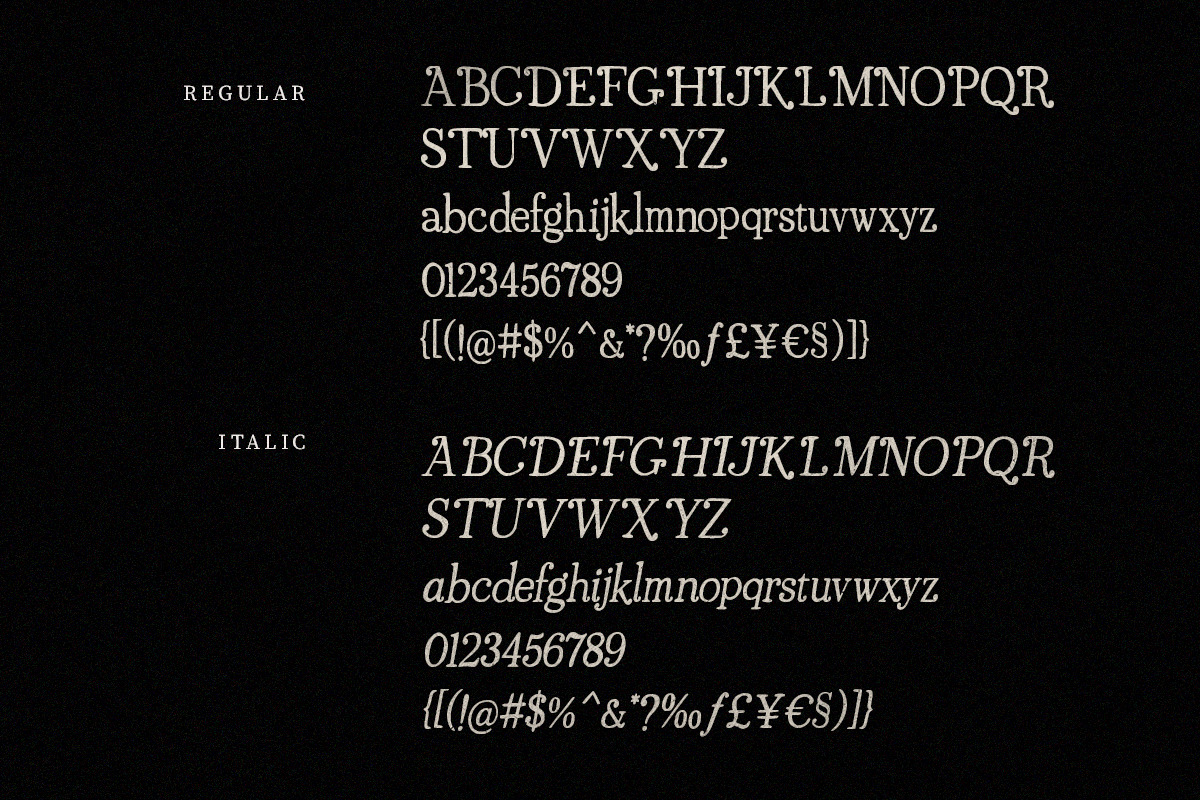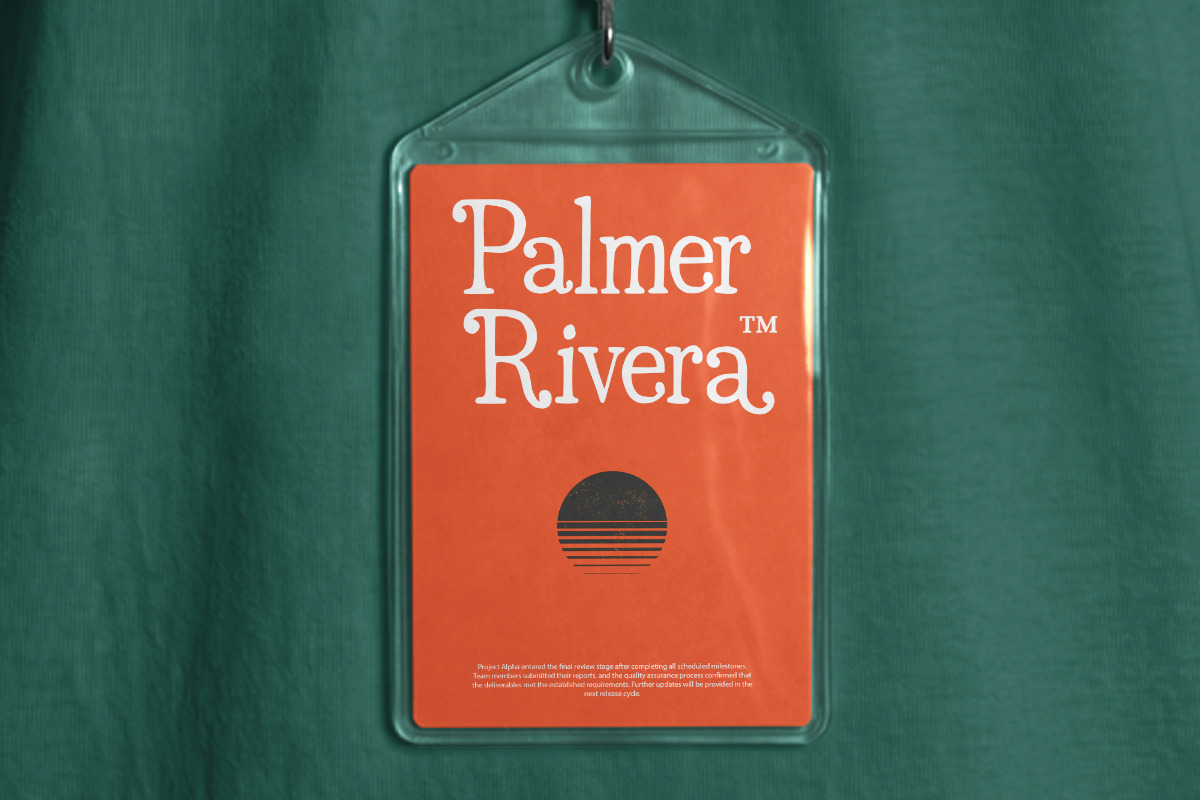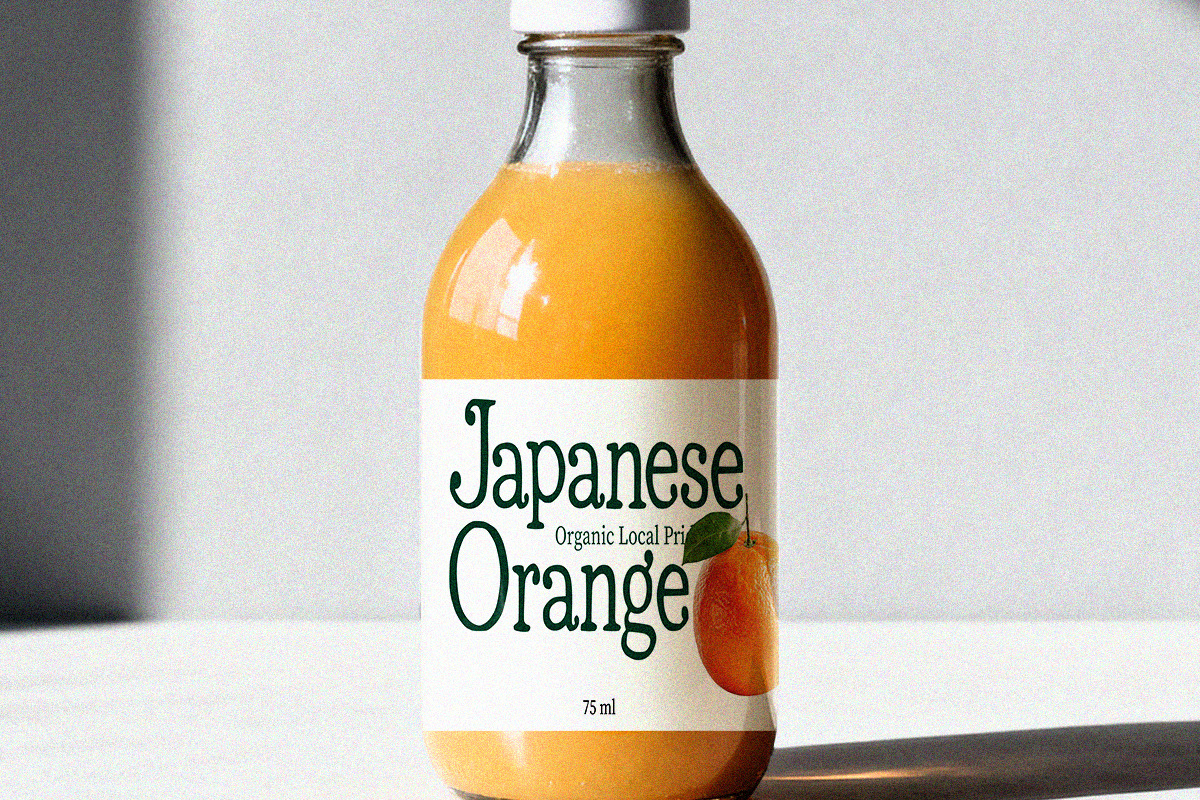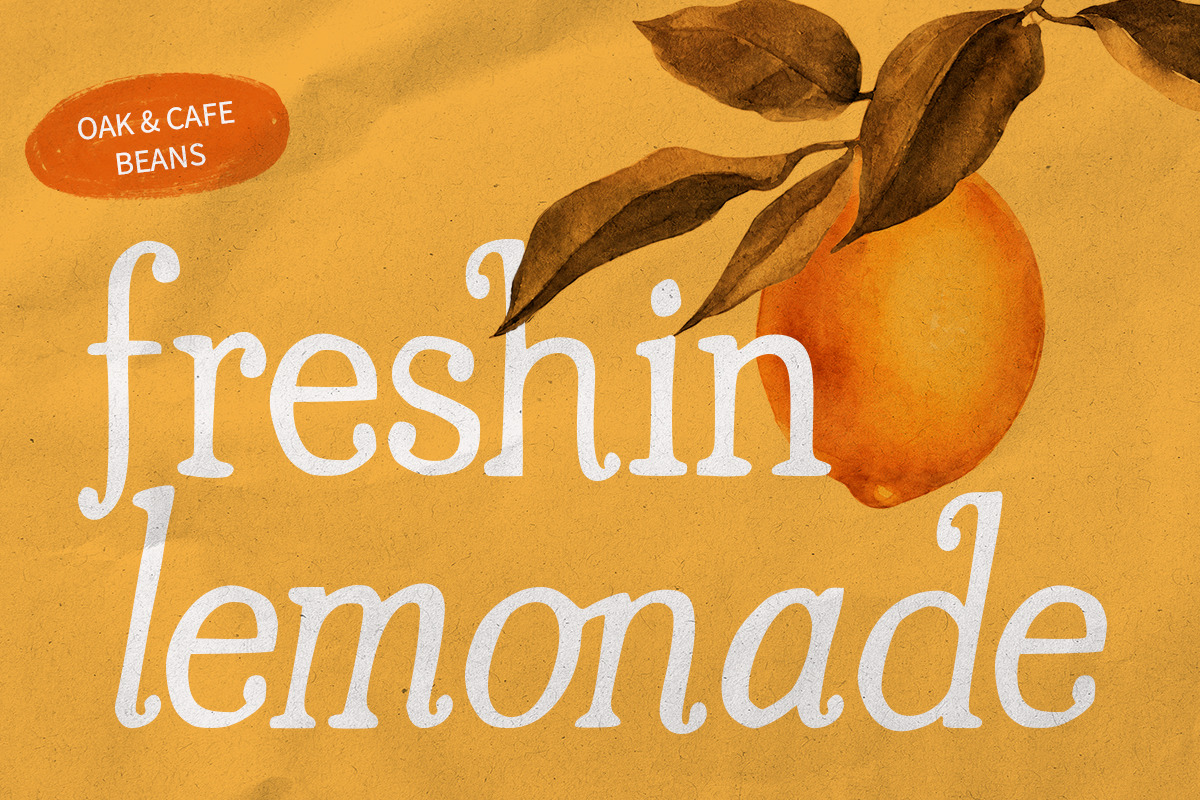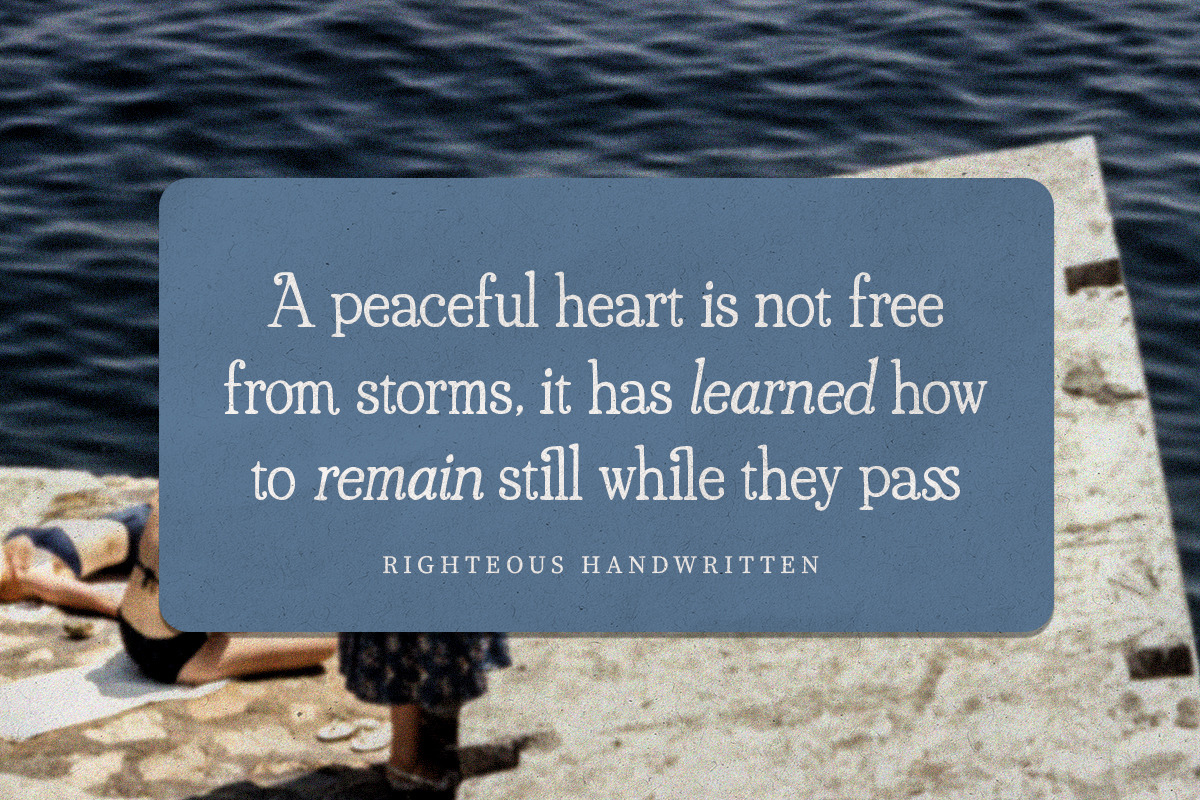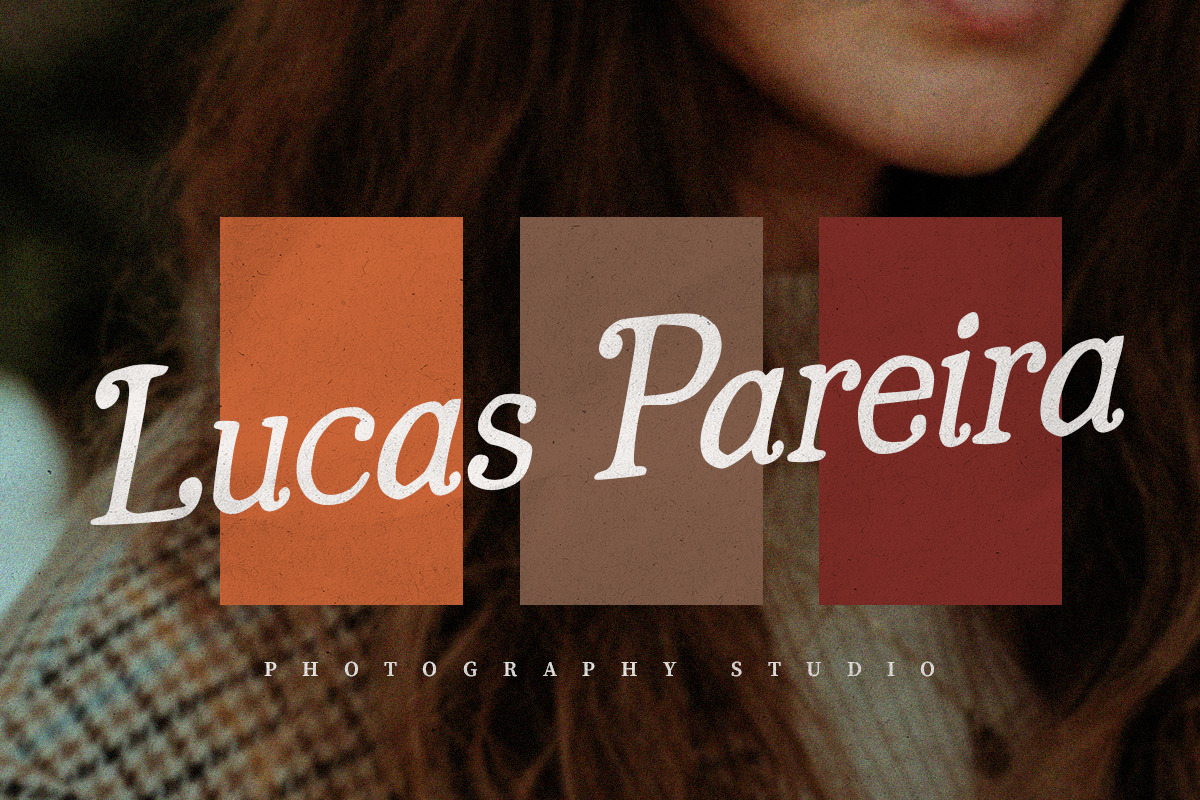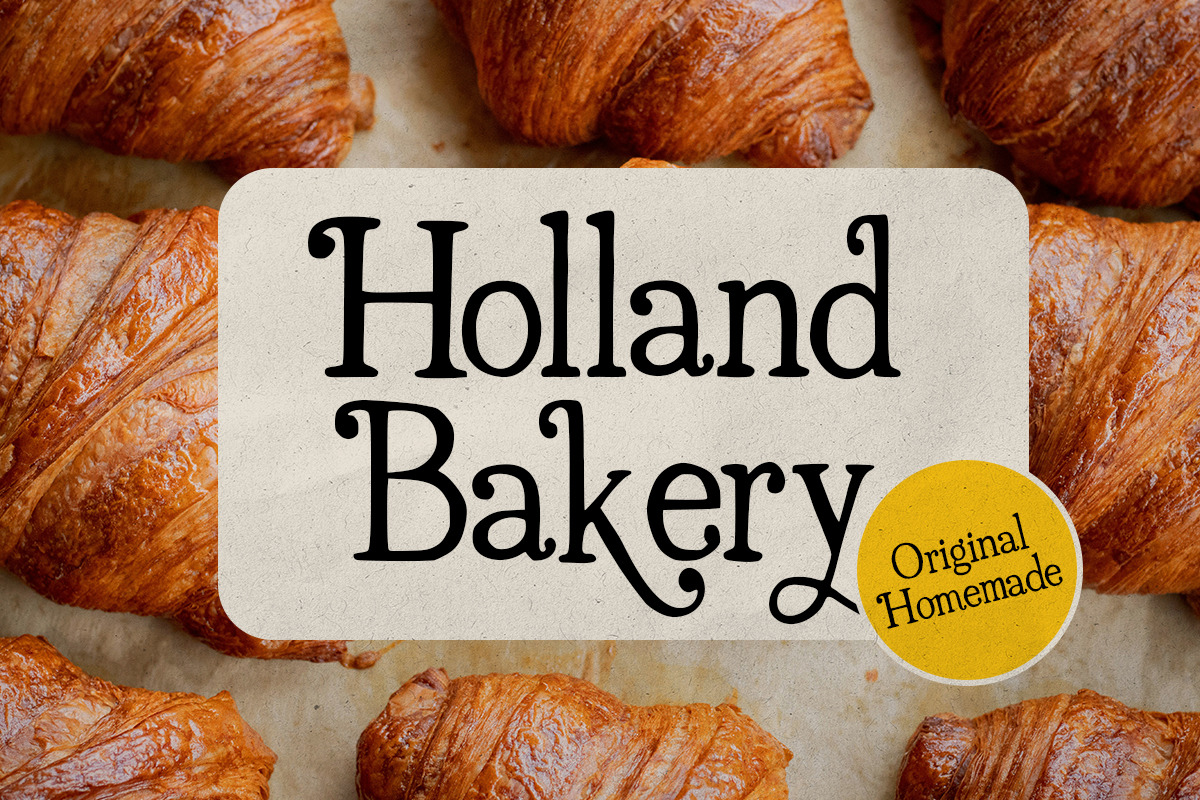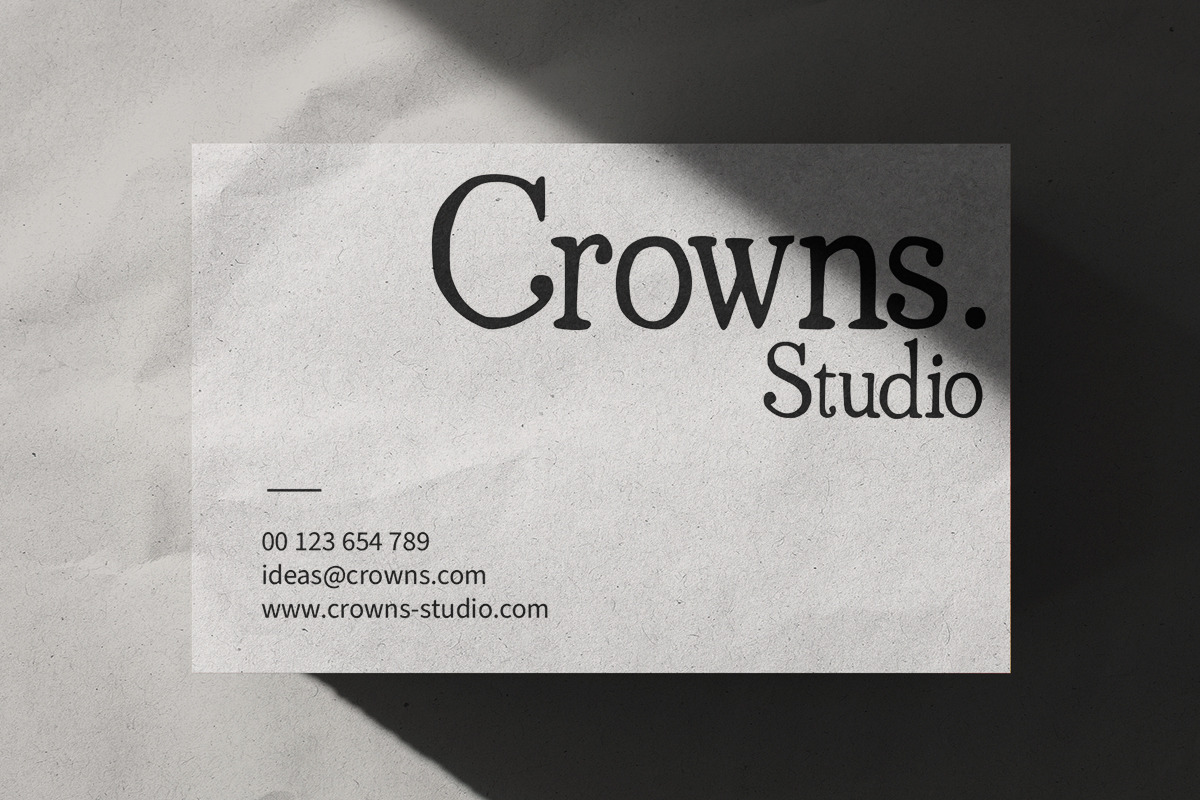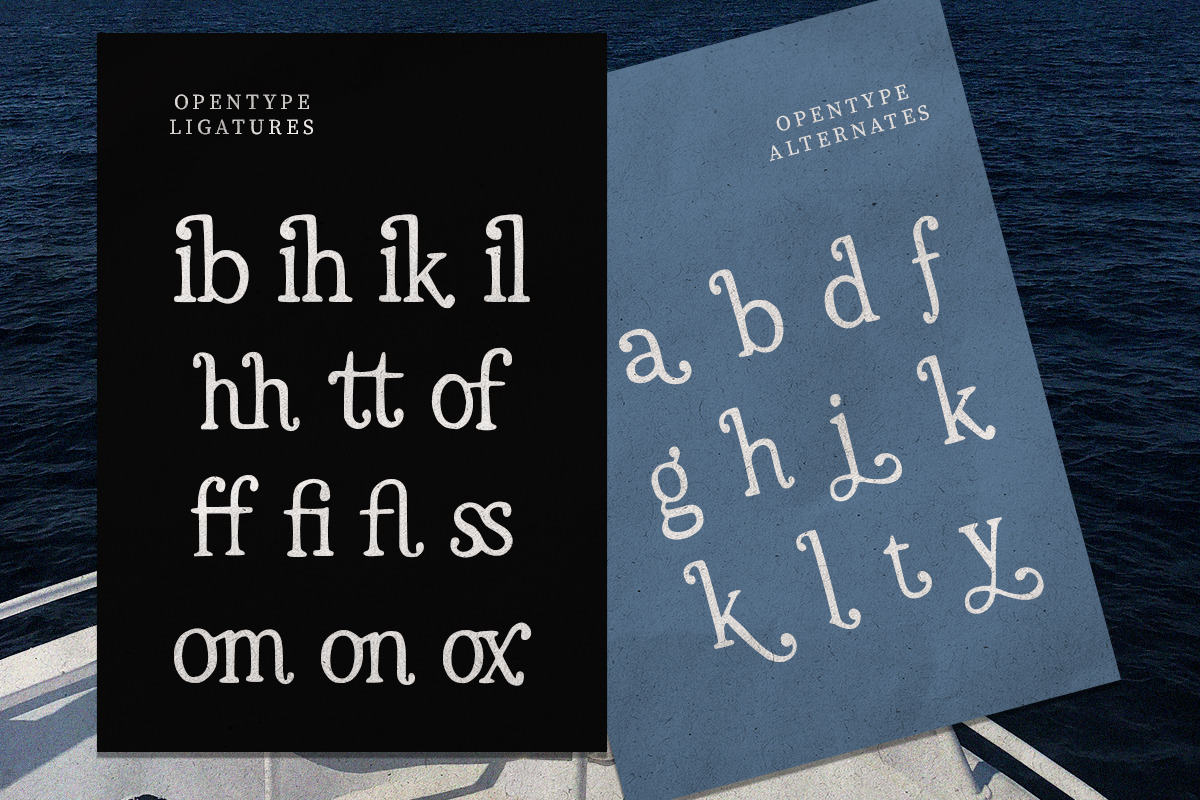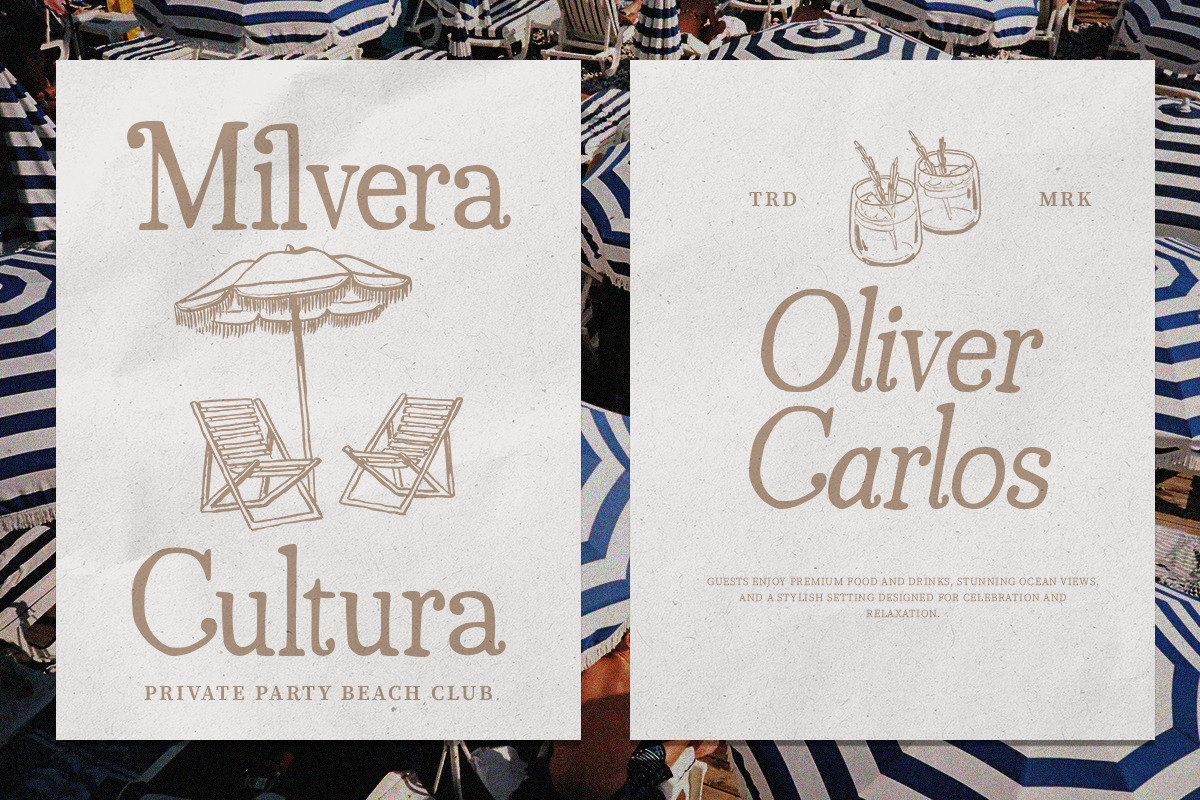
Casoria Serif
Casoria Serif is a refined and stylish typeface that combines a rough serif texture with elegant letterforms, making it perfect for creating a timeless, rustic aesthetic. Available in both regular and italic styles, this font offers flexibility for various design projects, while its opentype ligatures add a unique and artistic touch to typography compositions. Its handcrafted feel brings warmth and character, ideal for branding, editorial layouts, packaging, or any creative work that seeks a blend of sophistication and vintage charm.